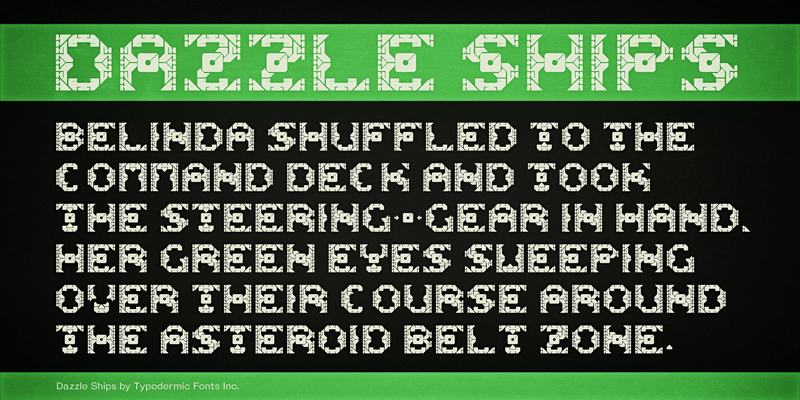
I created Dazzle Ships, the nonsensical segmented LCD font back in 1996. It’s truly a delight to read and I hope that someday, all printed documents will employ Dazzle Ships. The previous version of Dazzle Ships only supported a handful of languages. Now it supports two handfuls and a footful of languages. And the people rejoiced in the streets. This font includes a license that allows free commercial use: sometimes referred to as a desktop license. This allows you to install the font on a computer and use it to create posters, web graphics, game graphics, t-shirts, videos, signs, logos and more. Read the license agreement for details. If you'd like to embed this font in an app, ebook, on the web or anything that's not covered by the desktop license agreement, visit the link below. You'll find distributors who offer different types of licenses or you can contact me for help. http://typodermicfonts.com/dazzle-ships/ |